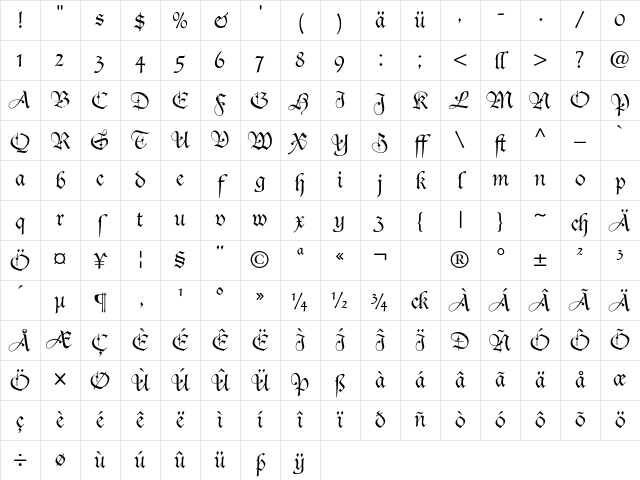
DucDeBerry-Dfr Regular
Design Context for DucDeBerry-Dfr
DucDeBerry-Dfr is a composed and adaptable typeface that performs quietly and consistently across a wide range of design contexts.